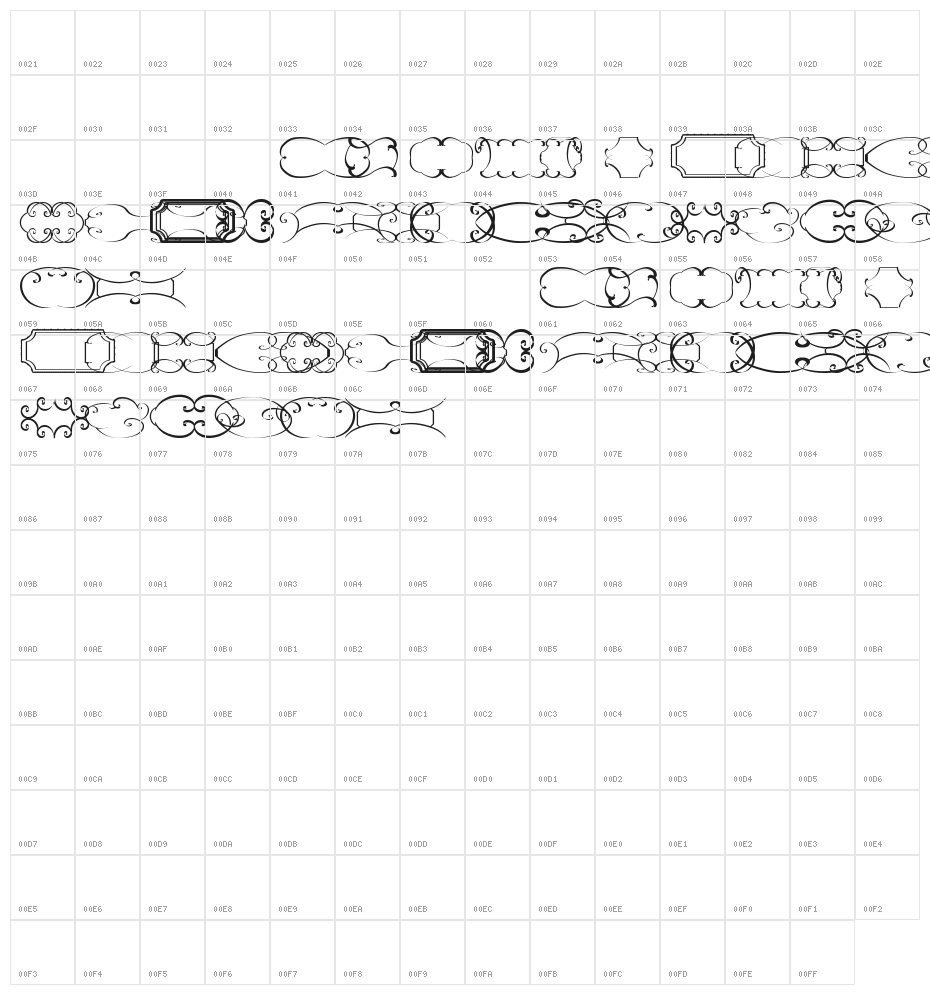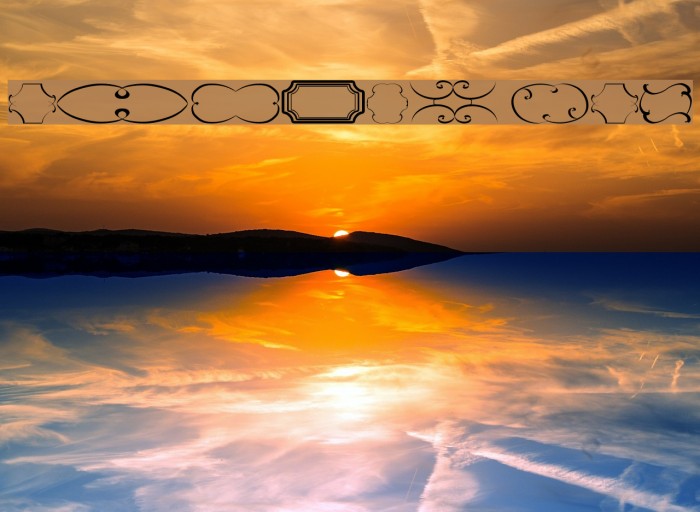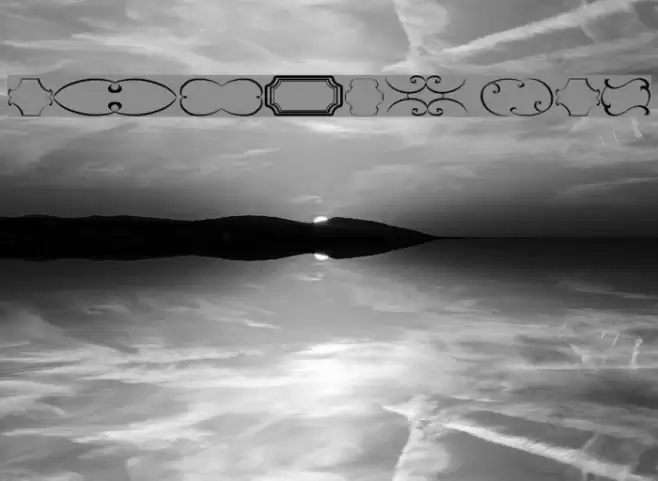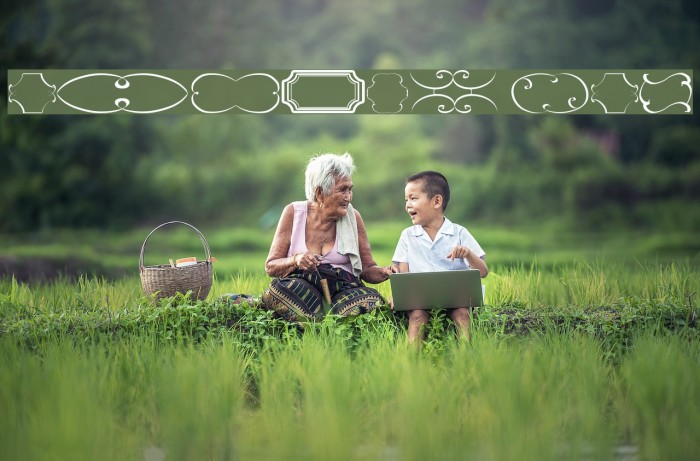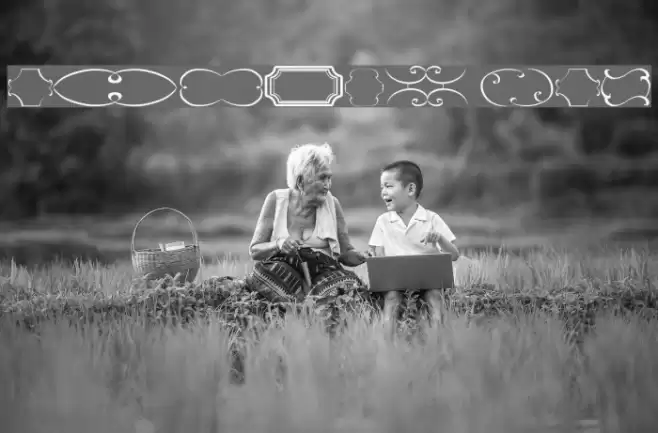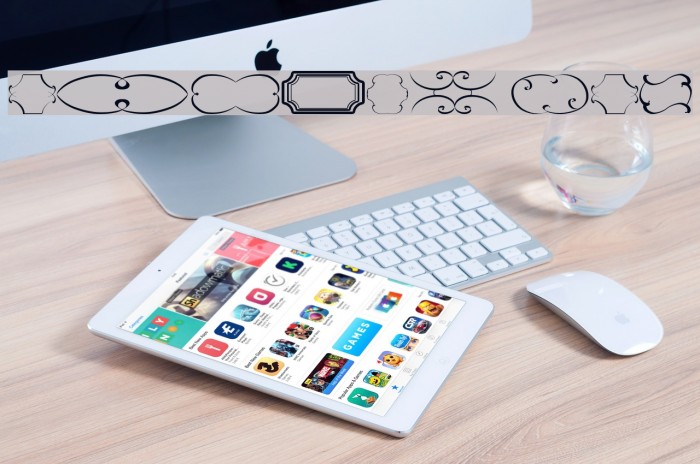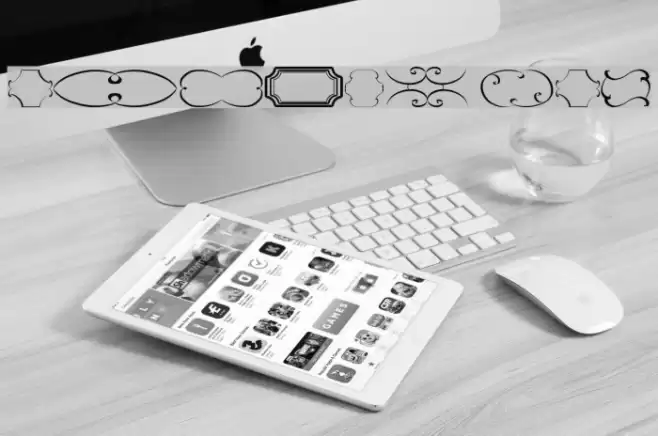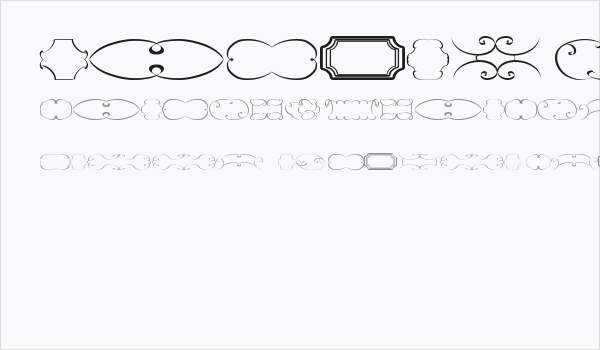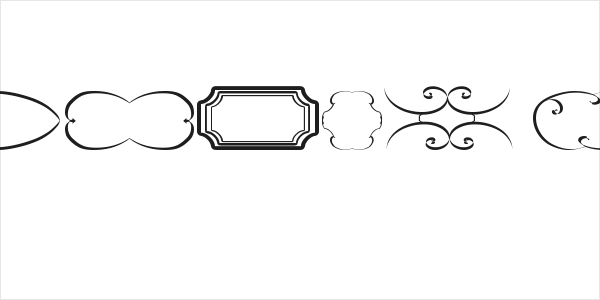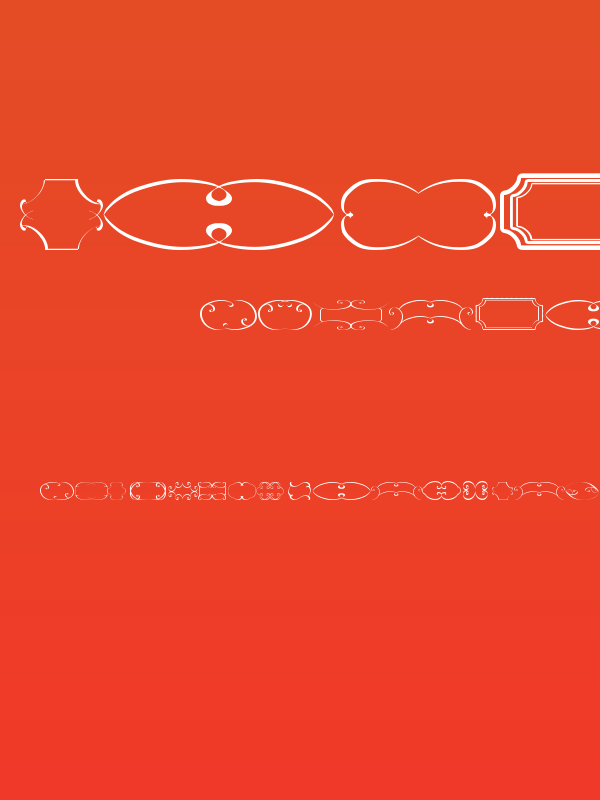
frames tfb Font
frames tfb Description
A decorative display font composed entirely of ornate, frame-like glyphs with intricate flourishes and symmetrical designs, resembling vintage borders or ornamental dividers rather than traditional alphanumeric characters.
| Overall Style | Decorative, Vintage |
| Use Case | Borders, Frames, Decorative accents |
| Proposed Projects | Invitations, certificates, decorative borders, vintage-themed designs, scrapbooking, ornamental dividers. |